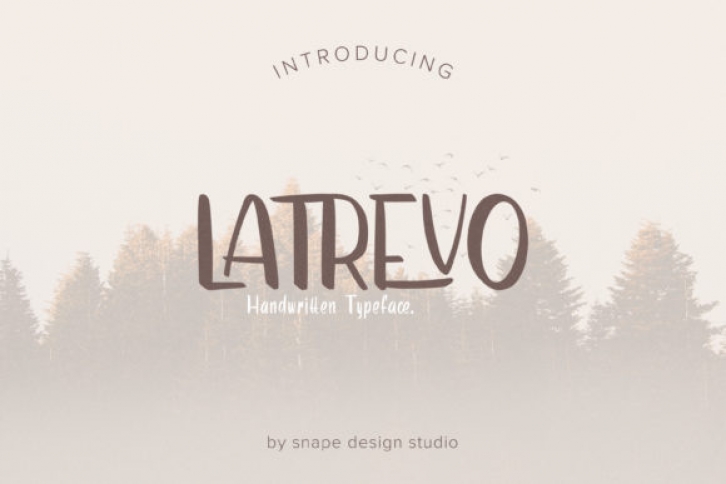
Latrevo is a stylish and brushed handwritten font. It is suitable for any branding, product packaging, invitation, quote, t-shirt, label, poster, logo that you wish to develop.